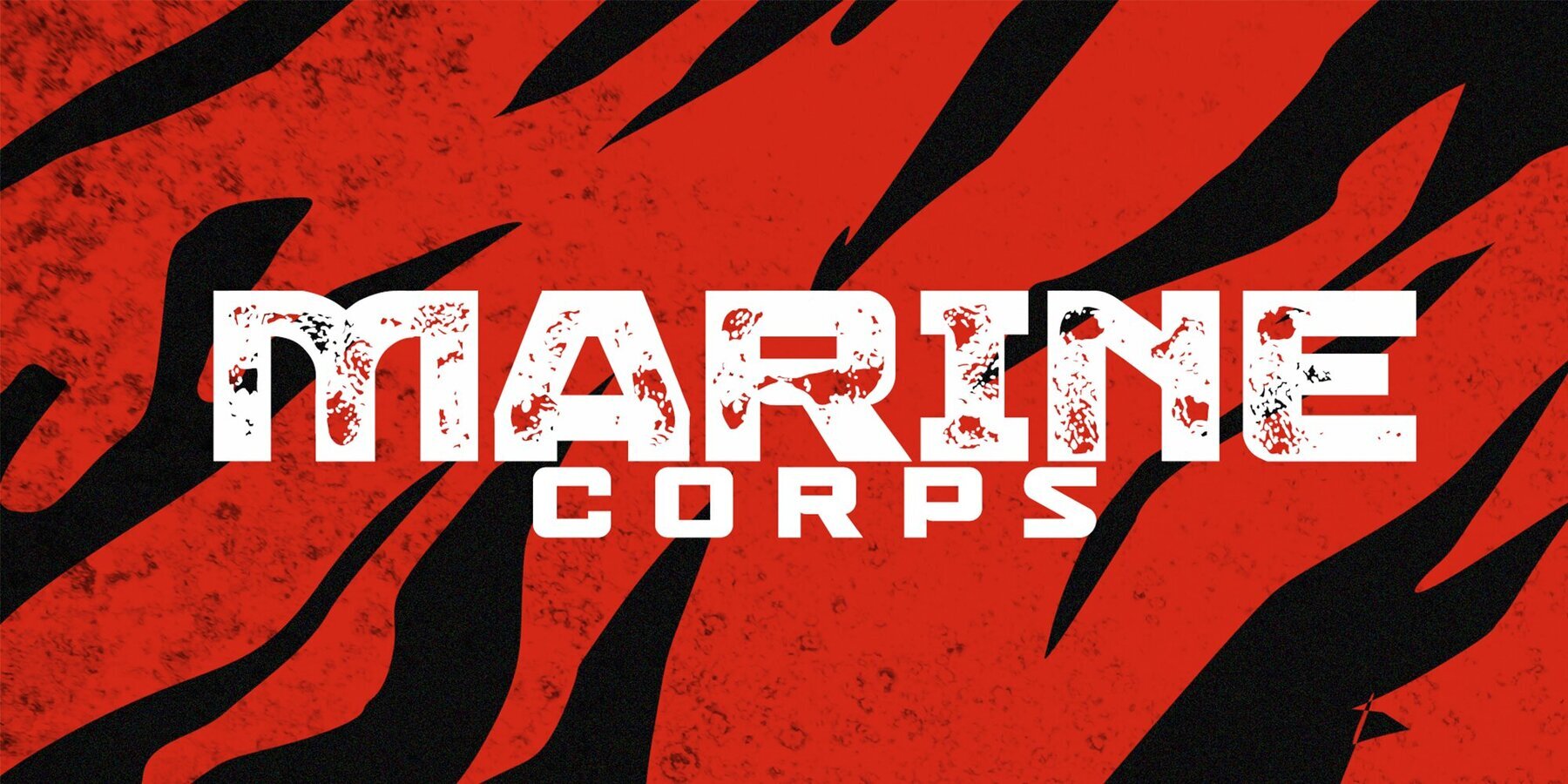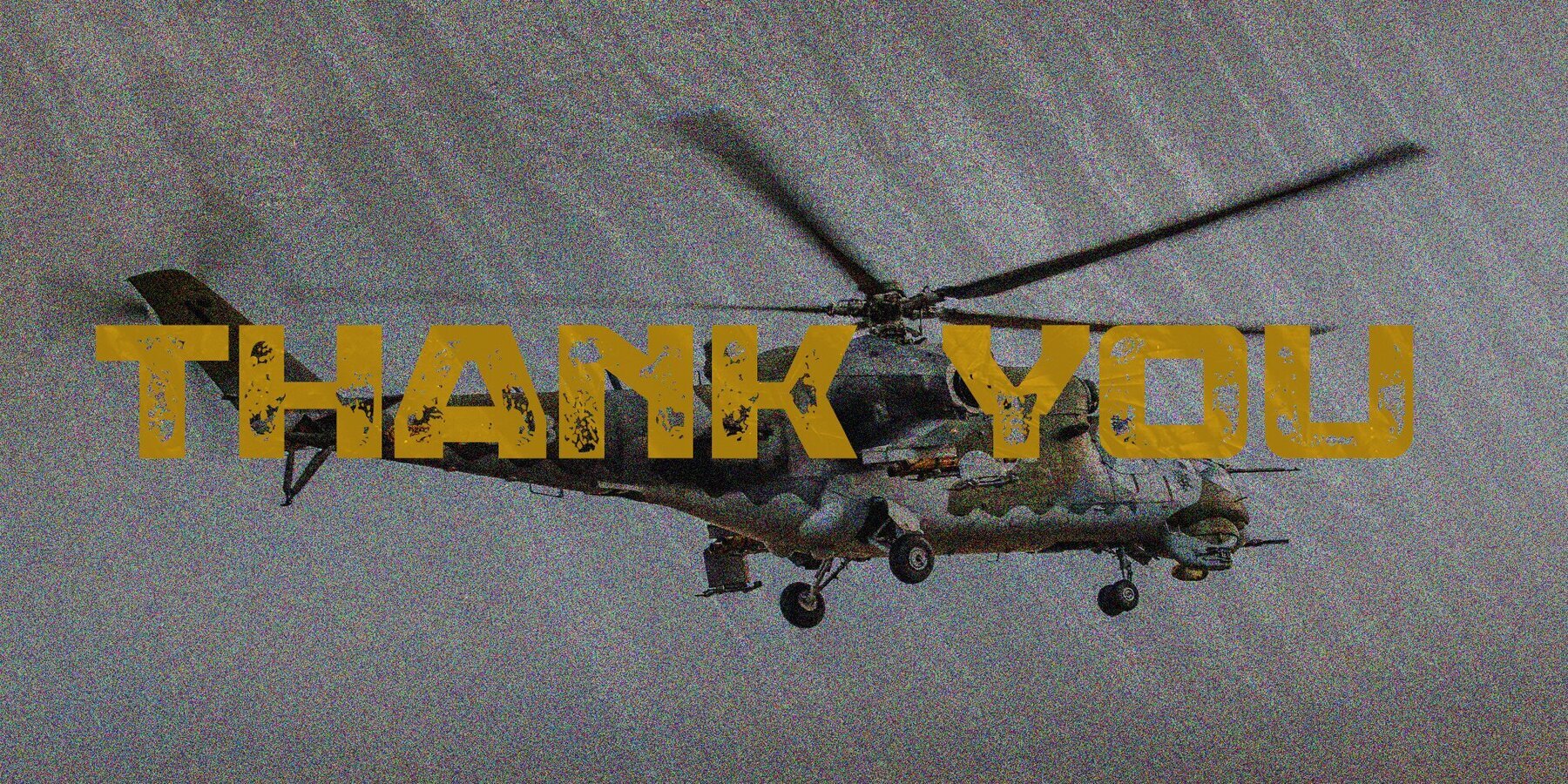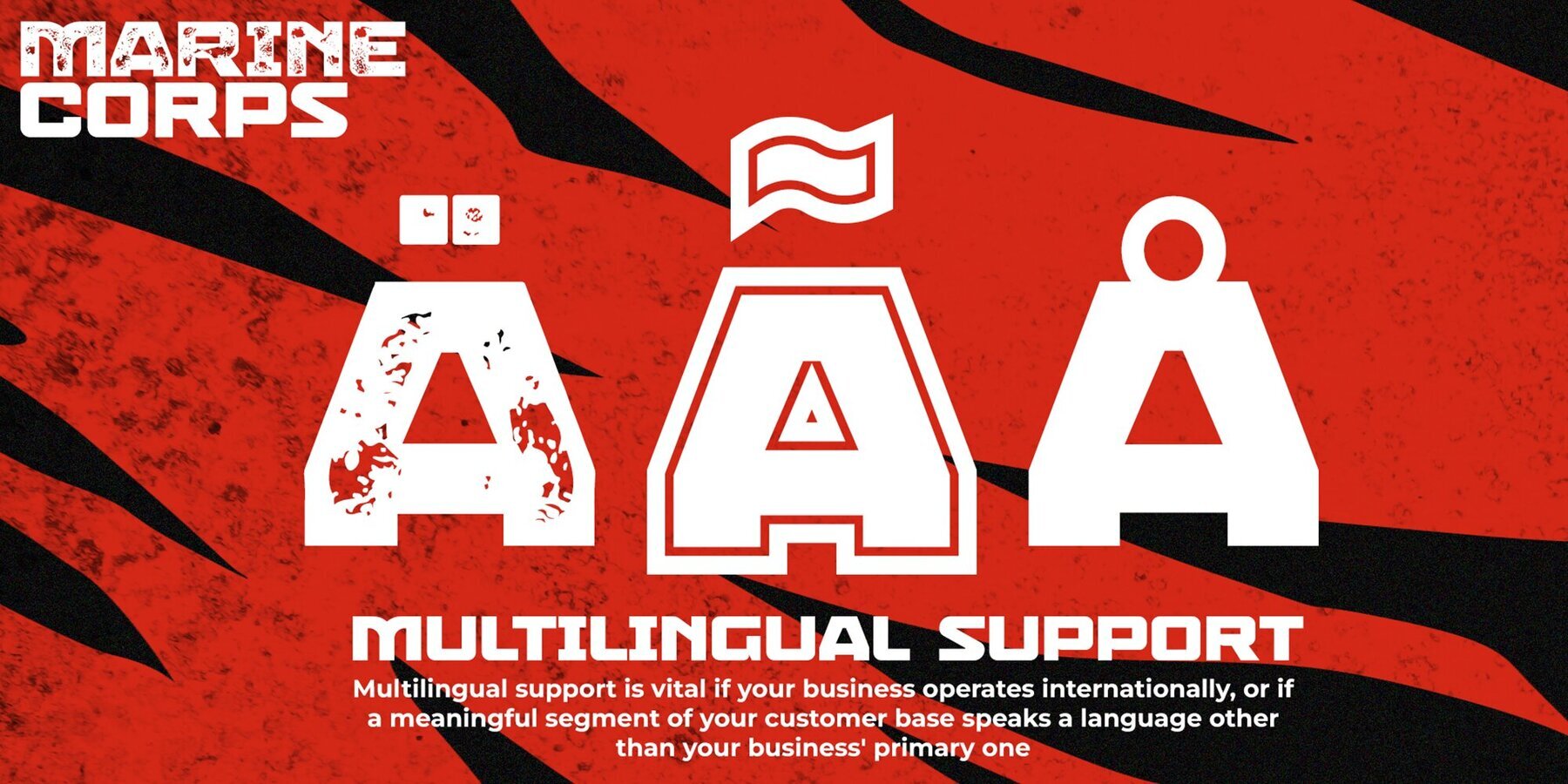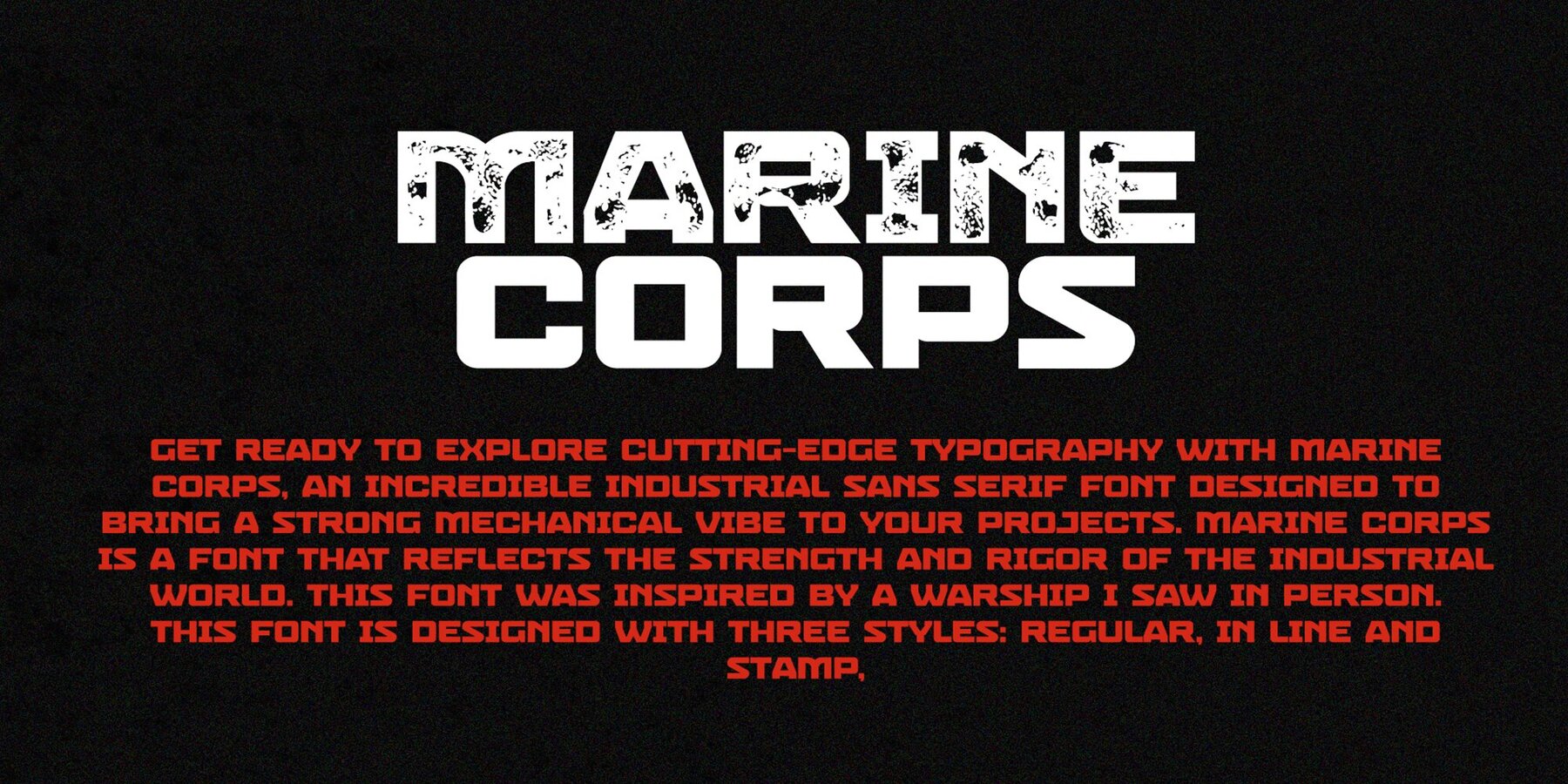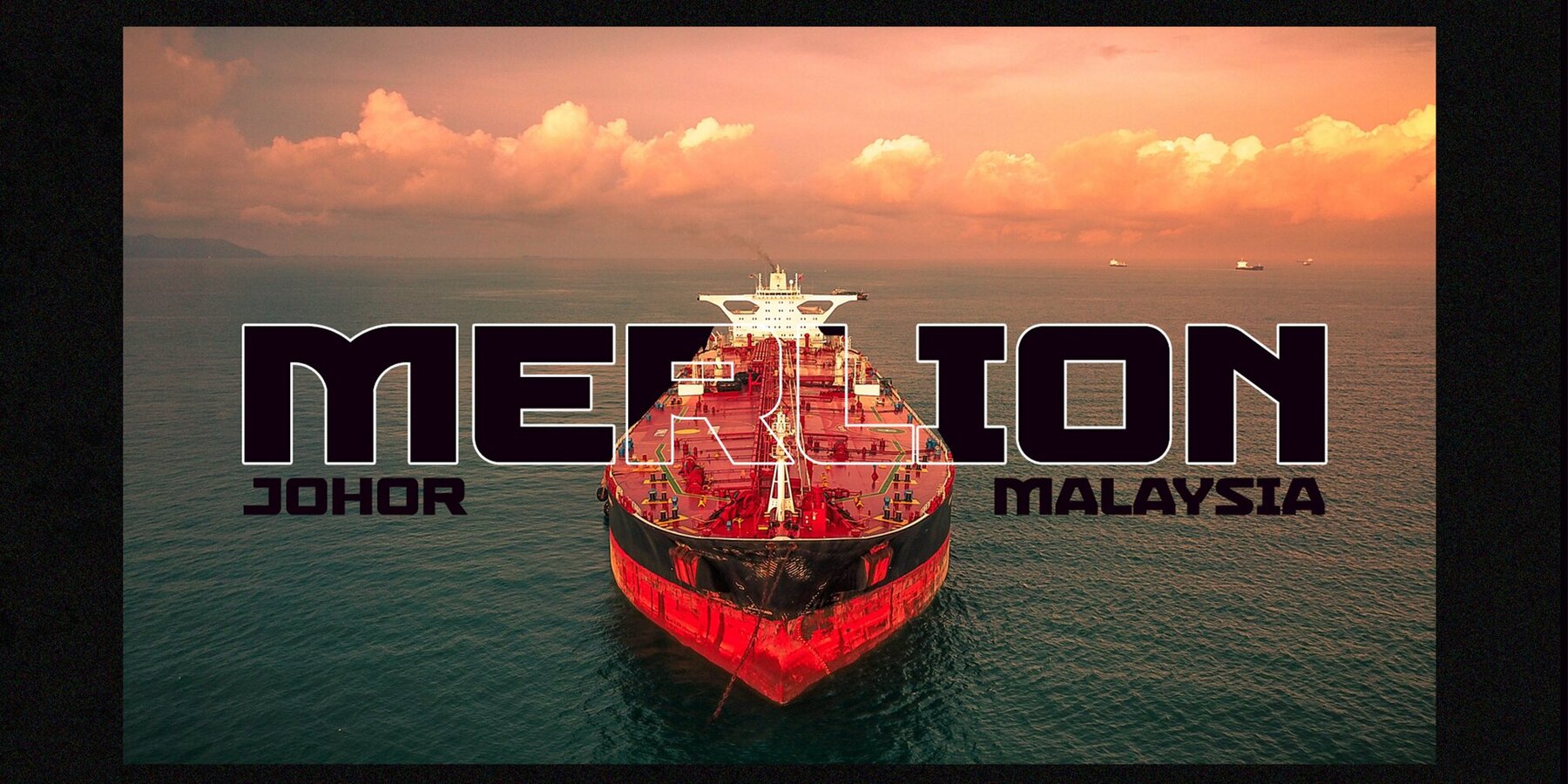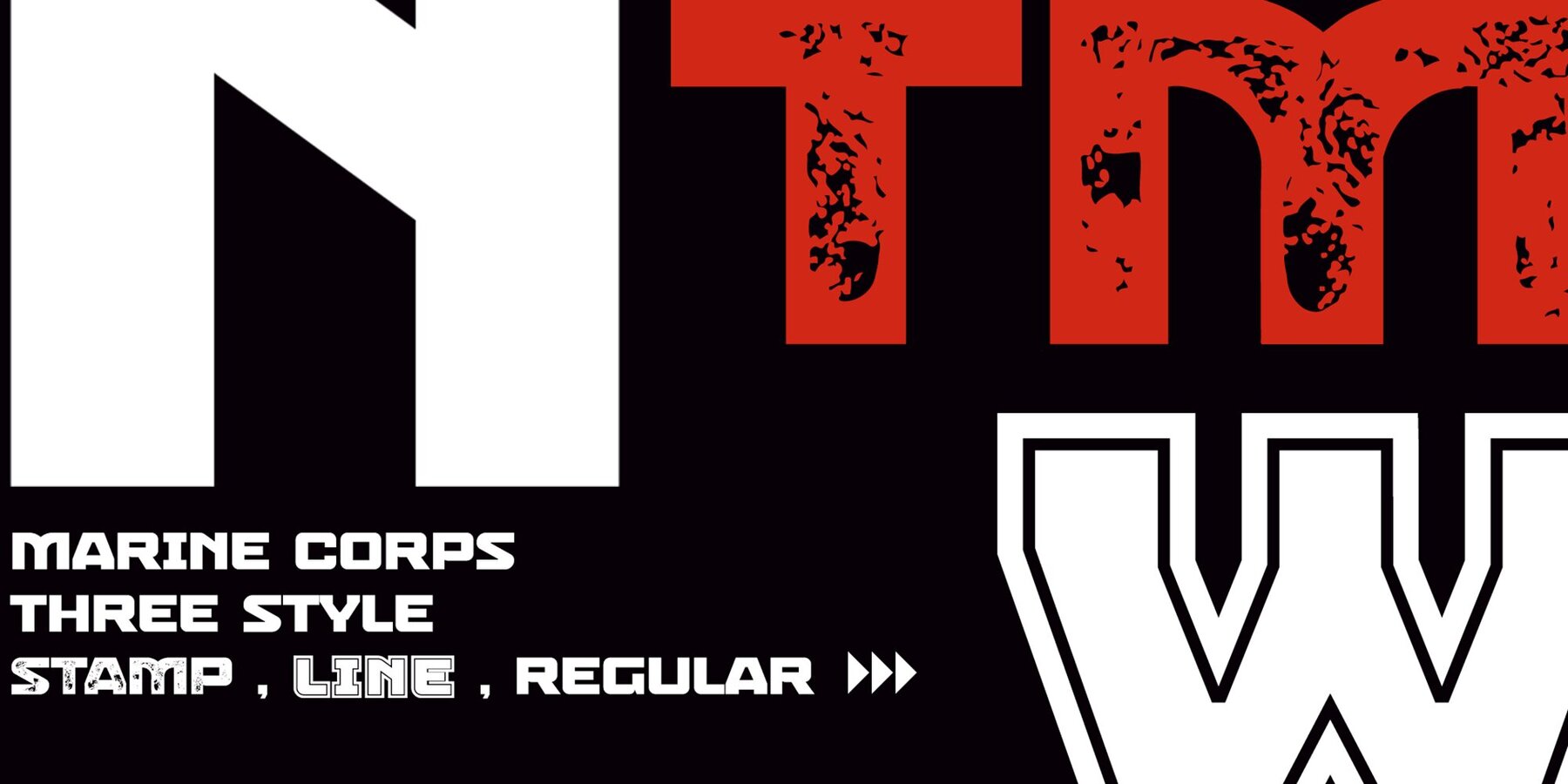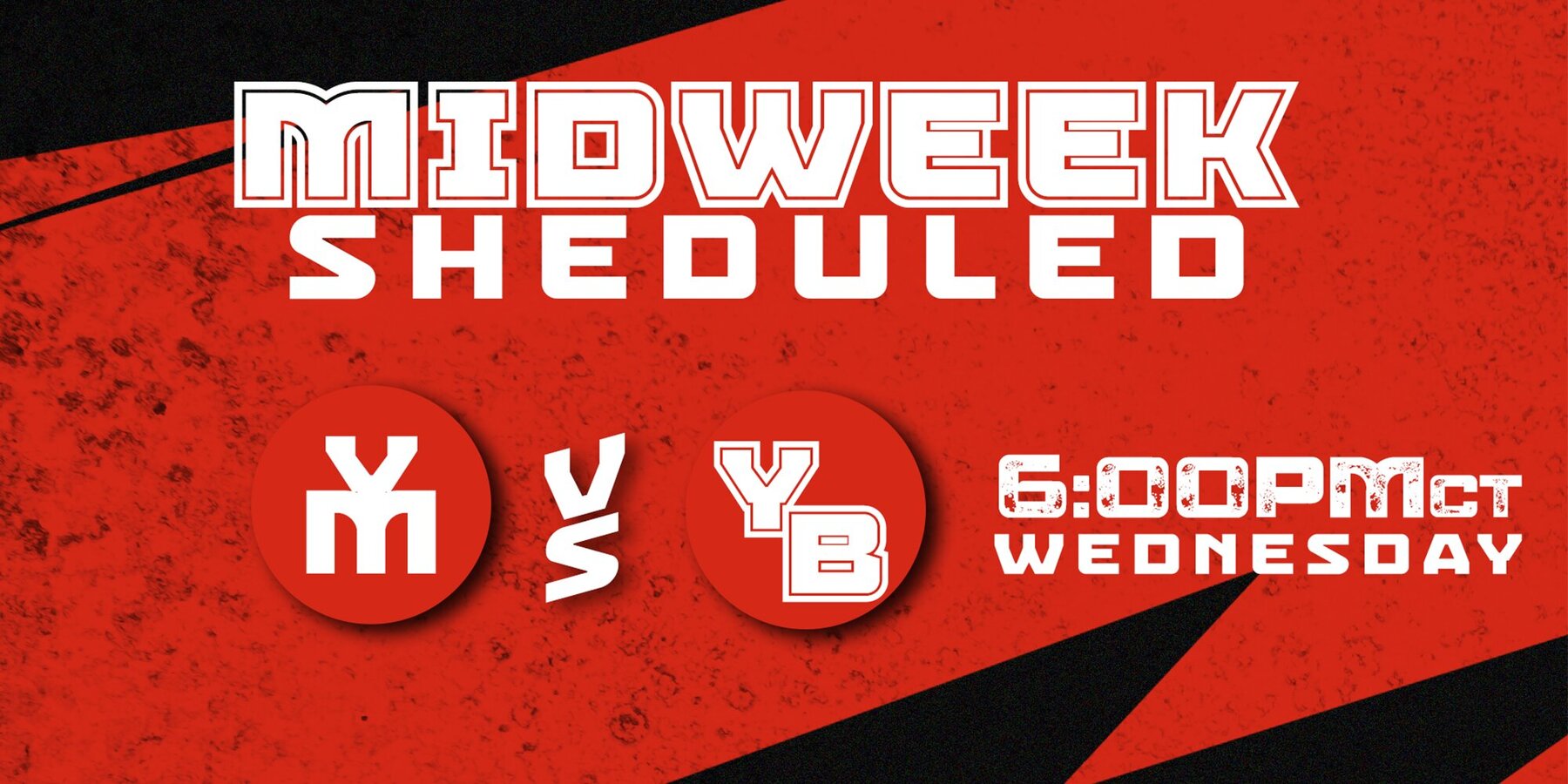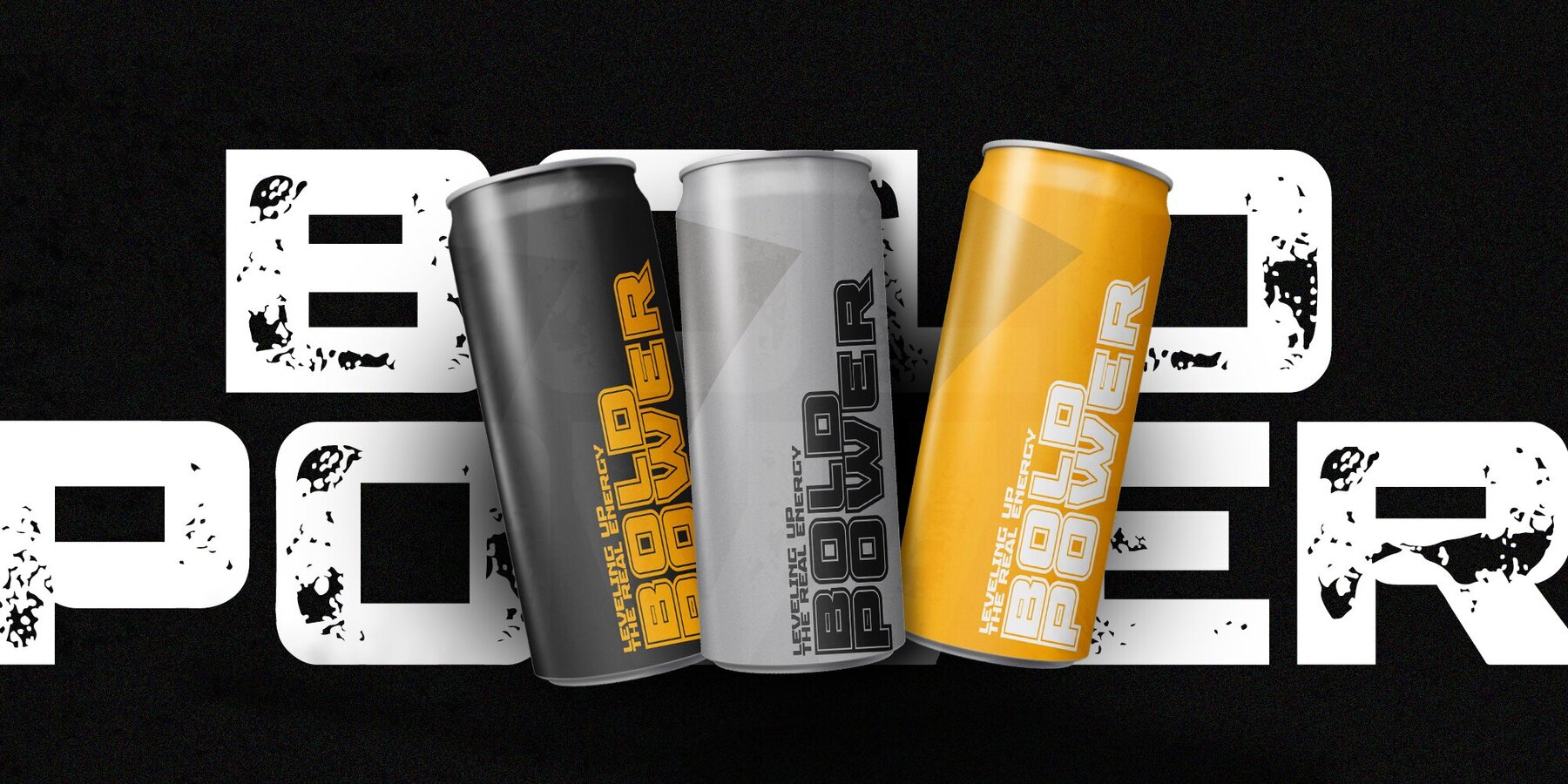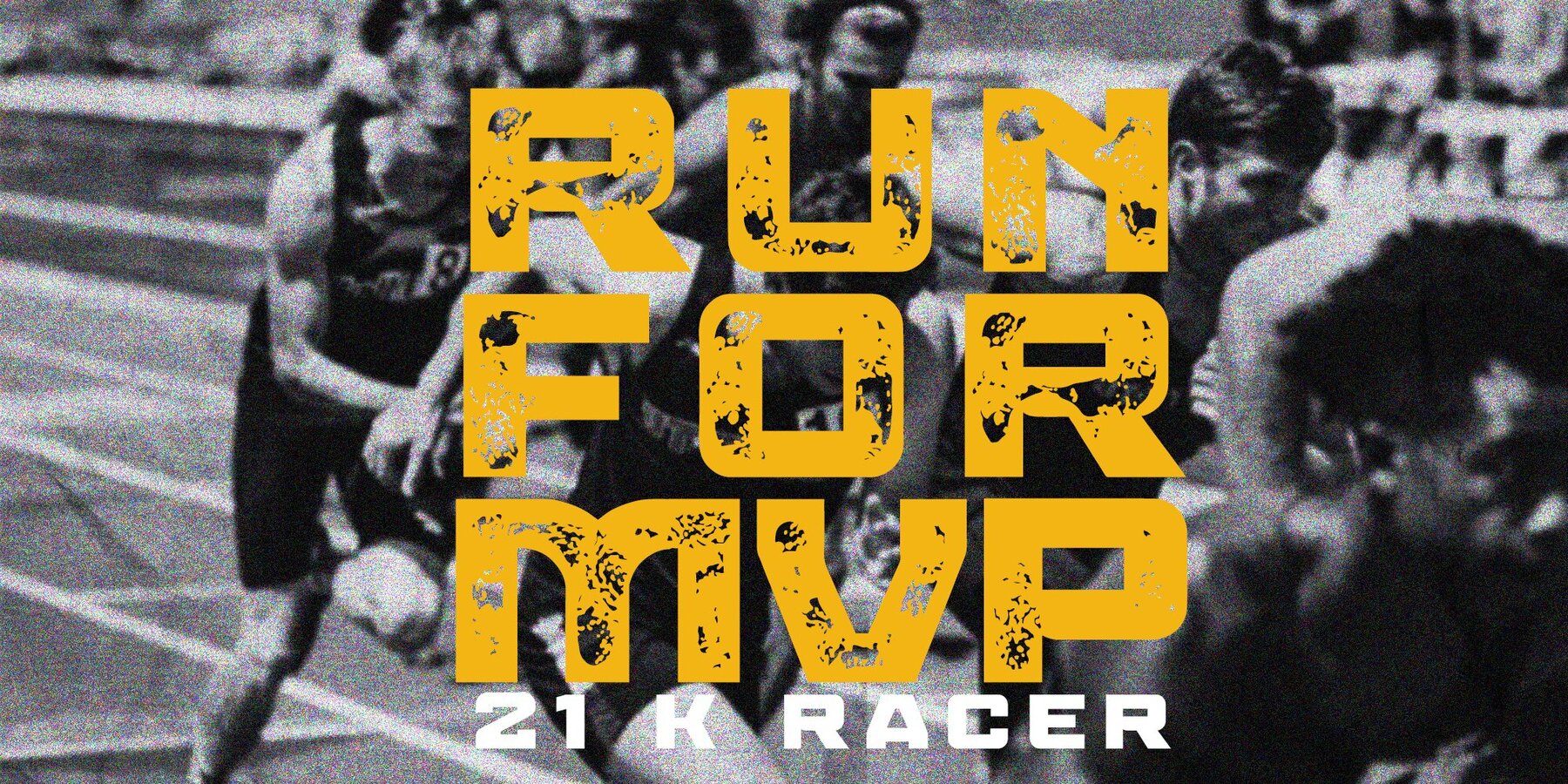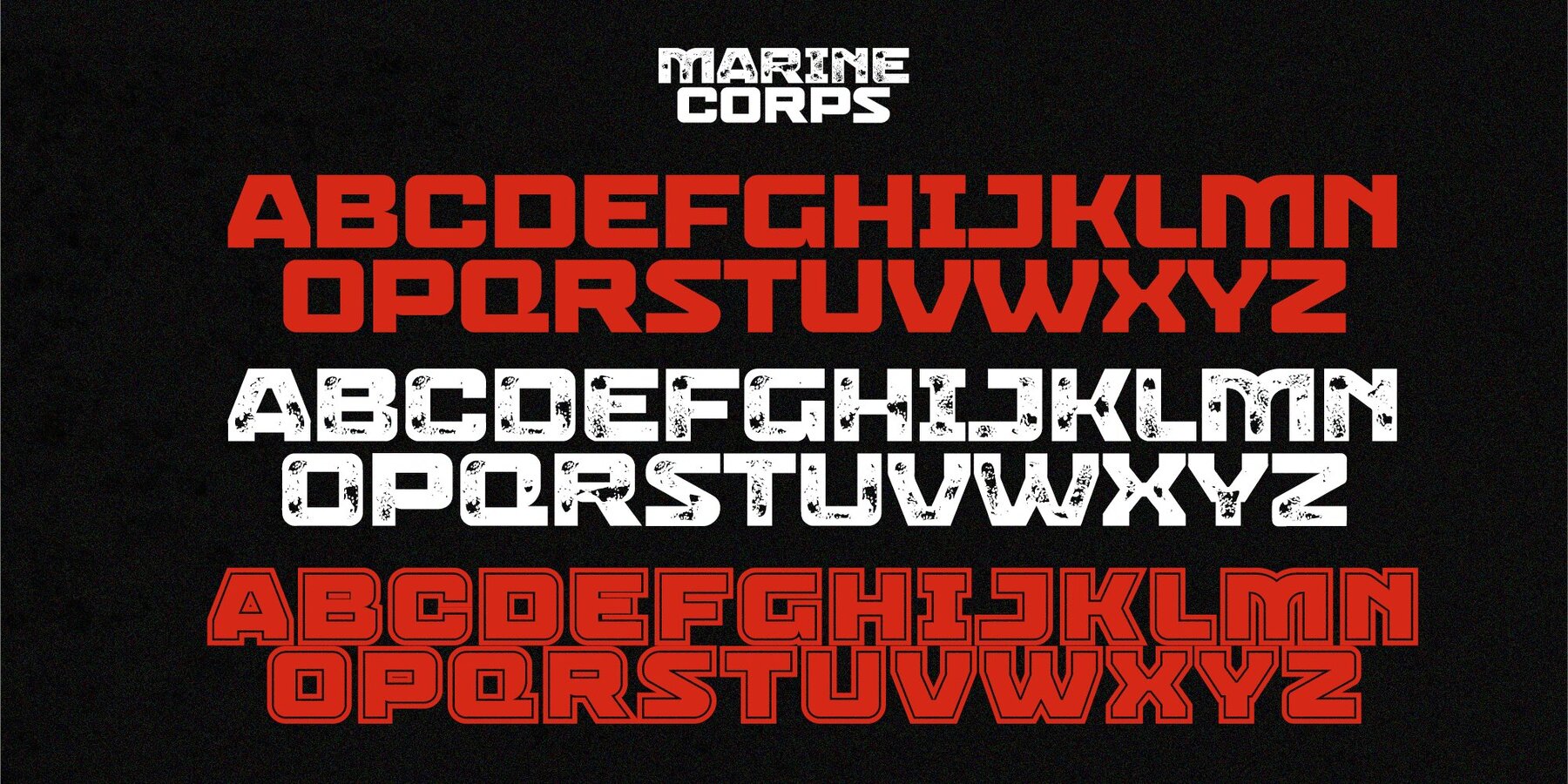
Marine Corps Font
The Marine Corps font by Lettercorner Studio is designed to make a statement. It's a strong choice for posters, social media, headlines, titling, and large-format prints where you need to capture attention. This font combines straight lines and corporate confidence with a touch of roguish charm, giving your text a strong, playful voice.Marine Corps: Bold Typography with a Unique Edge
Versatile Styles